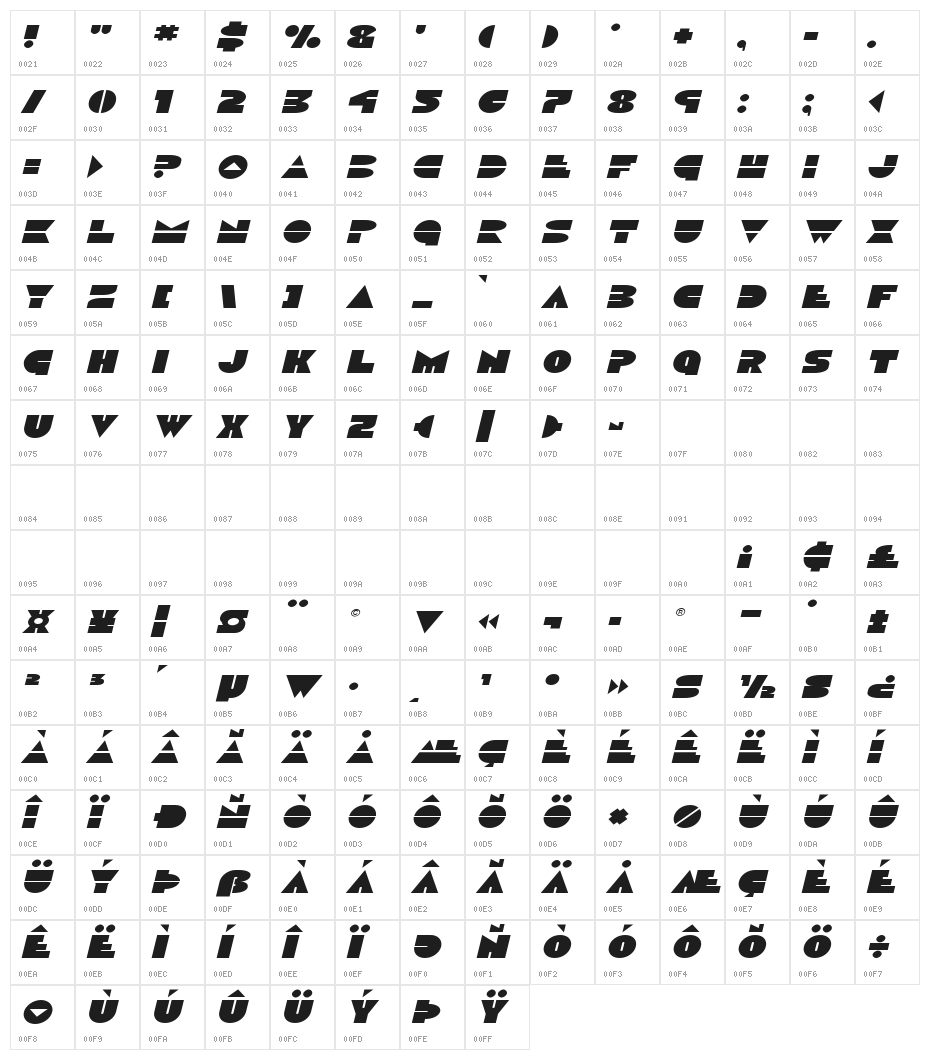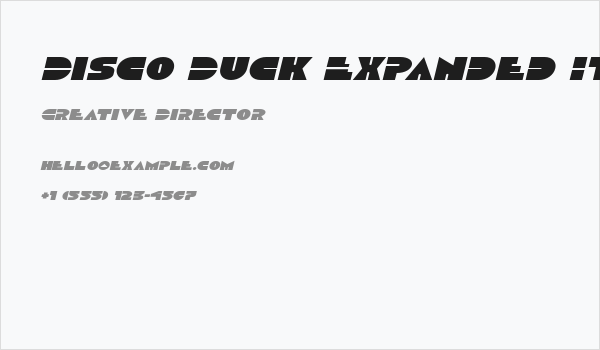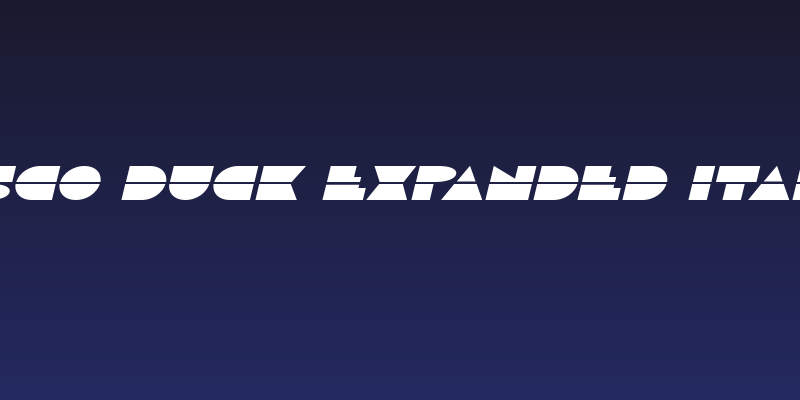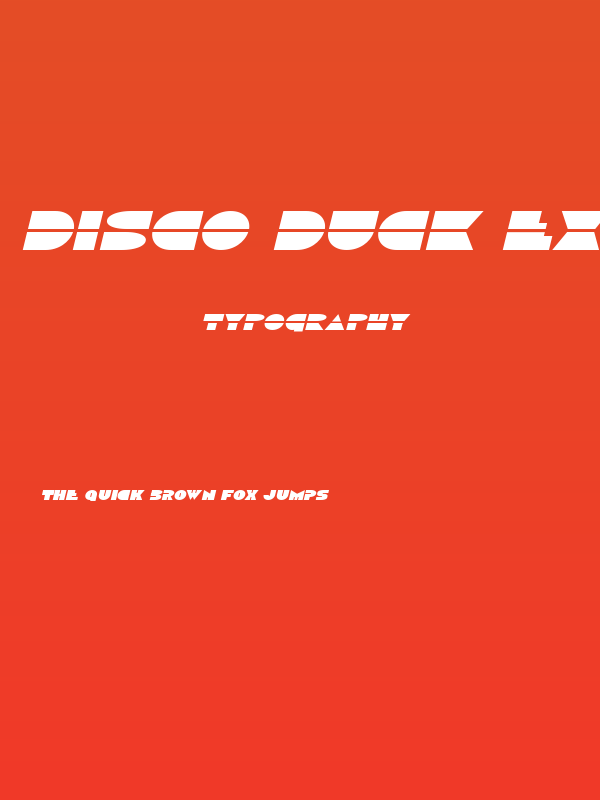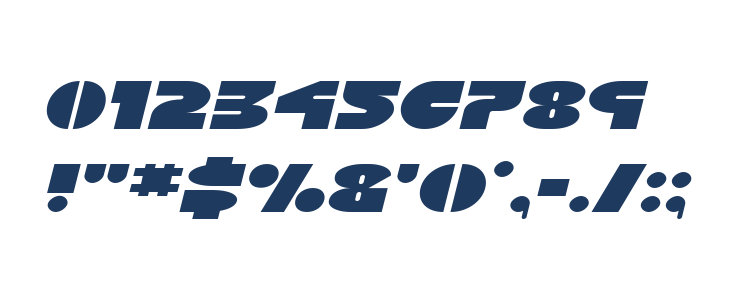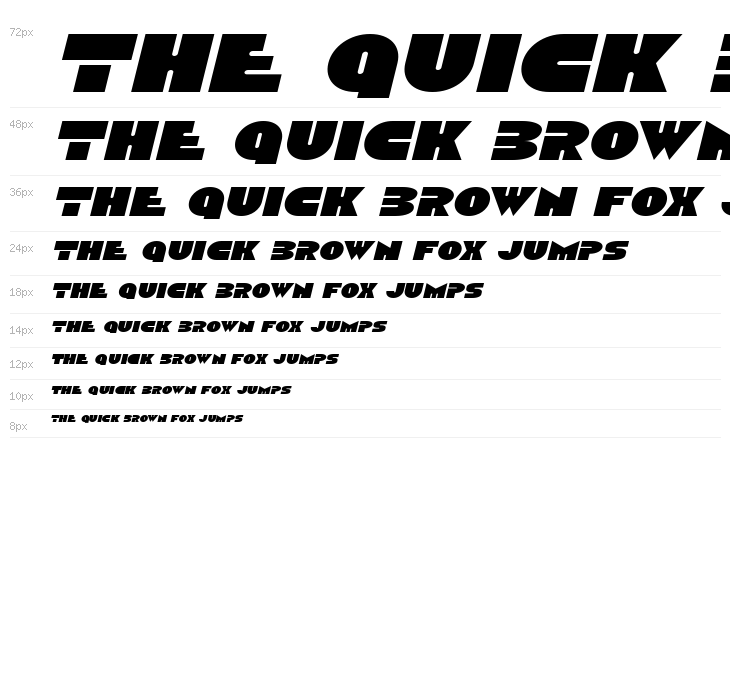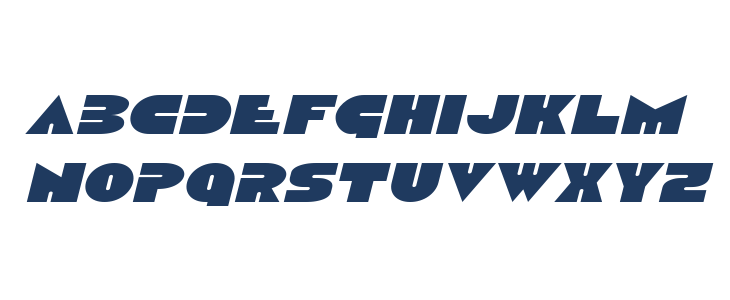
Disco Duck Expanded Italic Font
Disco Duck Expanded Italic Description
This font features a bold, geometric design with a distinctly modern flair. The characters are constructed with sharp angles and a sense of movement, giving them a dynamic and energetic appearance. The expanded and italicized style adds to its unique personality, making it stand out in any design. The uppercase and lowercase letters maintain a consistent style, with each character exhibiting a strong presence. The numbers and special characters follow the same design principles, ensuring a cohesive look across all elements. This font is ideal for projects that require a bold statement and a touch of modernity.
| Proposed Projects | Ideal for branding, posters, album covers, and any project needing a bold, modern touch. |